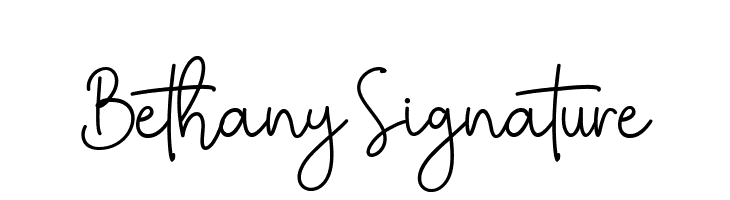
An elegant, flowing handwritten font with interconnected letters and a delicate touch.
A bold, playful script font with smooth, flowing curves and a hand-drawn appearance.
A playful, handwritten font with tall, narrow letterforms and rounded edges.